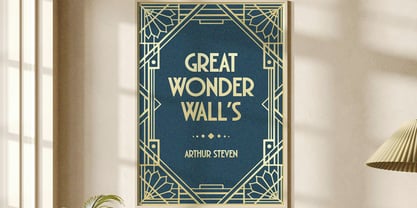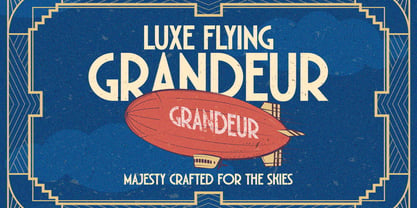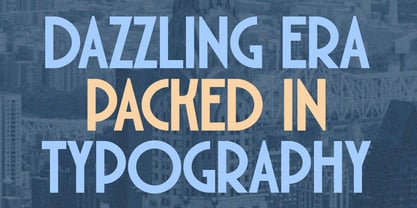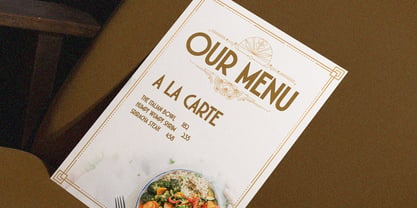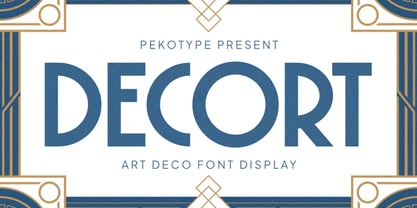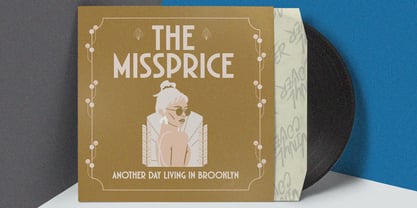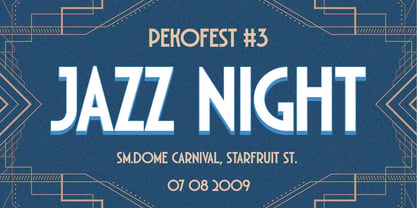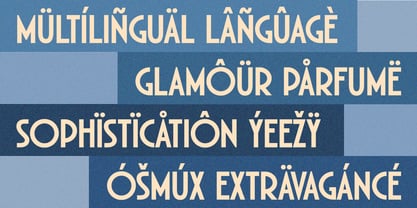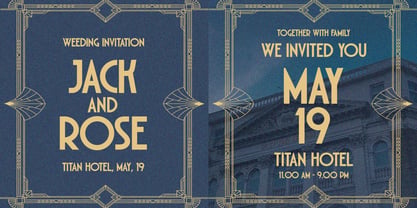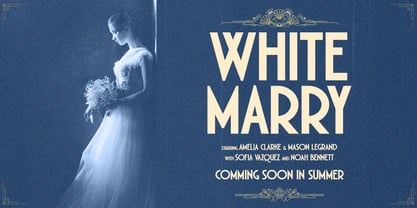
Decort
by Pekotype
The Decort Font Family was designed by Galang Bryan and published by Pekotype. Decort contains 1 styles. More about this family
DECORT is an elegant Art Deco display font inspired by the glamour and style of the 1920s. Featuring bold geometric shapes and a refined vintage feel, it is perfect for branding, logos, invitations, packaging, posters, and luxury-themed designs. With its timeless character and multilingual support, DECORT helps create sophisticated, eye-catching visuals that bring a touch of class and elegance to any project.
Designers: Galang Bryan
Foundry: Pekotype